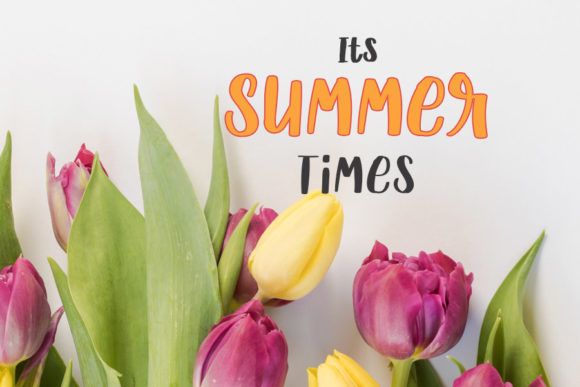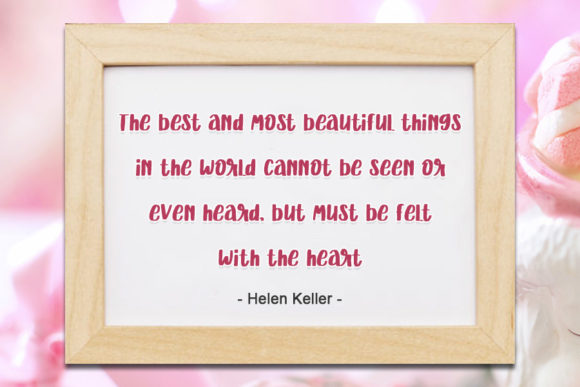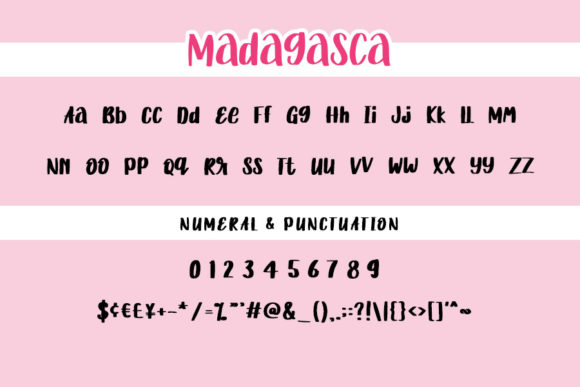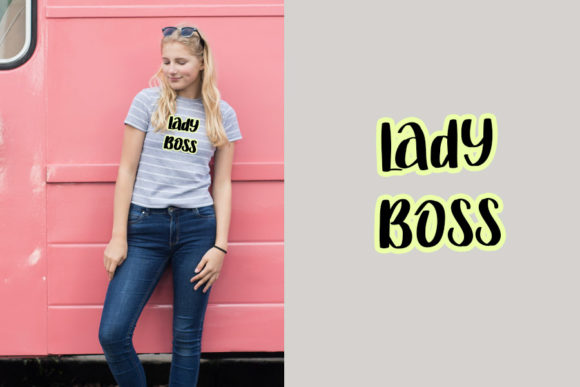
Introduction to Madagasca Font Font
Fonts play a crucial role in design, and the Madagasca Font font is a typeface that brings both character and versatility to any project. Whether you’re working on a branding project, a website, or a print design, the Madagasca Font font offers a unique style that can elevate your work.
Madagasca is a beautiful and playful handwritten font.
Not too thin and not too thick, balanced and varied, Madagasca was designed to enhance the beauty of your projects .
Key Features of Madagasca Font Font
Why Choose Madagasca Font Font?
The Madagasca Font font is more than just a typeface – it’s a design tool that helps you communicate your message with style and clarity. Its unique character set and versatile design make it suitable for a wide range of applications, from elegant invitations to bold headlines.
With its carefully crafted letterforms and balanced proportions, the Madagasca Font font ensures readability and visual appeal across all mediums.
What makes Madagasca Font font special?
The Madagasca Font font stands out with its unique design, exceptional readability, and versatility across various design applications.